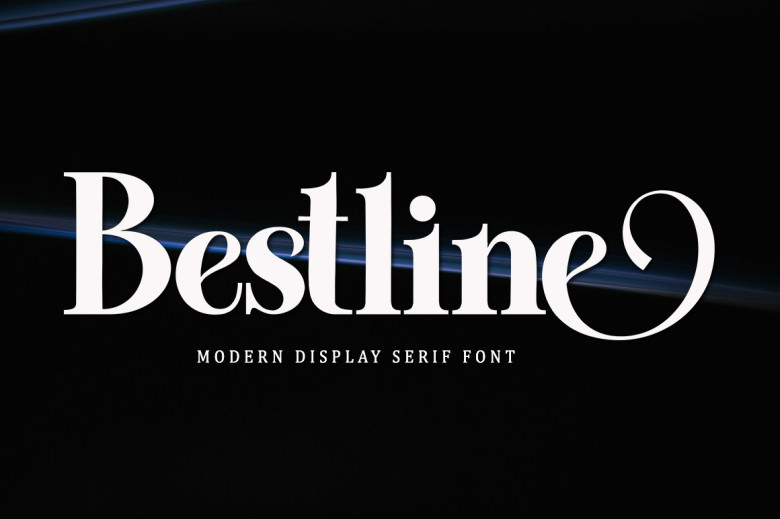
Bestline Font
Bestline is an elegant modern serif font that exudes grace and sophistication, featuring clean lines and delicate features for designs requiring an air of sophistication. Perfect for books, editorial layouts and other marketing products needing contemporary appeal with timeless feel, PUA encoded allowing access to every glyph and swash with ease!
Bestline Serif Font